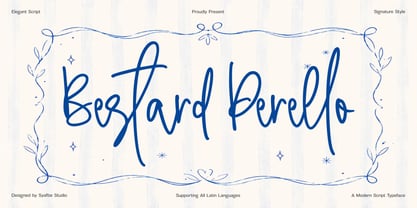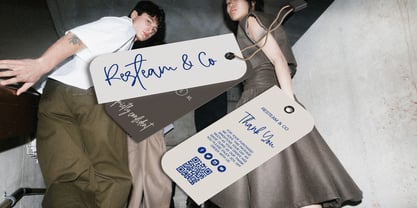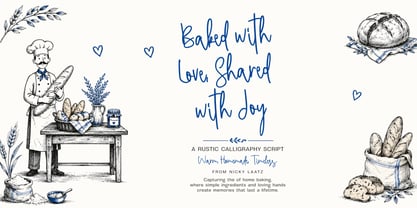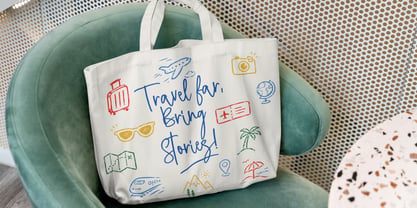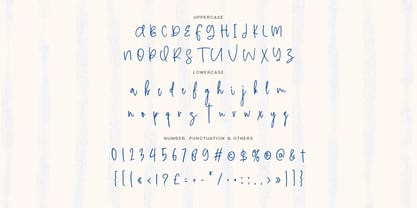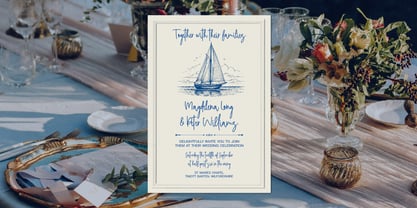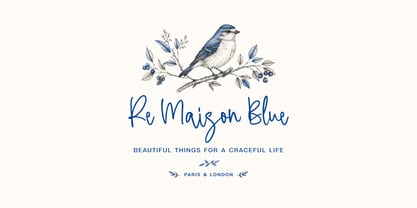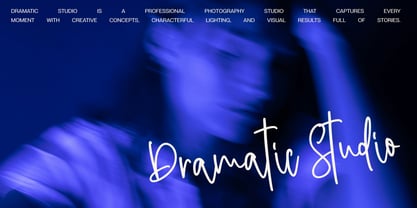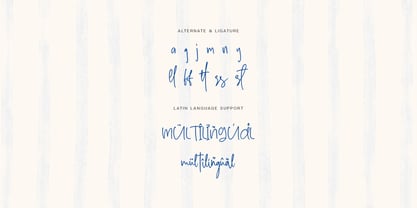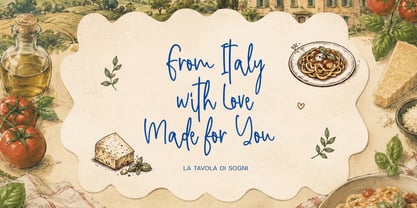
Bestard Perello
The Bestard Perello Font Family was designed by Syafwan Mus and published by Syafbe. Bestard Perello contains 1 styles. More about this family
Bestard Perello is an elegant modern script typeface designed to bring a refined handwritten touch to every creative project. With its graceful strokes, natural flow, and sophisticated signature style, this font captures the beauty of authentic penmanship while maintaining a contemporary and versatile appearance. Carefully crafted with smooth letter connections, stylish alternates, ligatures, and multilingual support, Bestard Perello is perfect for adding a personal and luxurious feel to wedding invitations, branding, logos, packaging, editorial designs, social media content, and other high-end visual projects.
Inspired by timeless elegance and modern creativity, Bestard Perello blends the charm of handcrafted lettering with the practicality needed for professional design work. Its delicate yet confident character makes it an ideal choice for brands, designers, and creatives who want to create a memorable visual identity with a warm and exclusive impression. Whether used for a signature logo, boutique branding, romantic stationery, or premium lifestyle products, Bestard Perello brings a touch of sophistication and artistic personality that transforms ordinary designs into something truly distinctive.